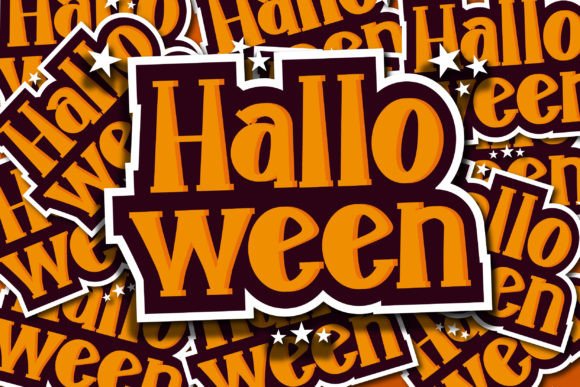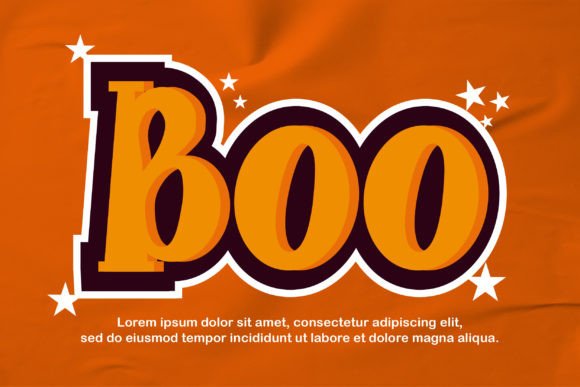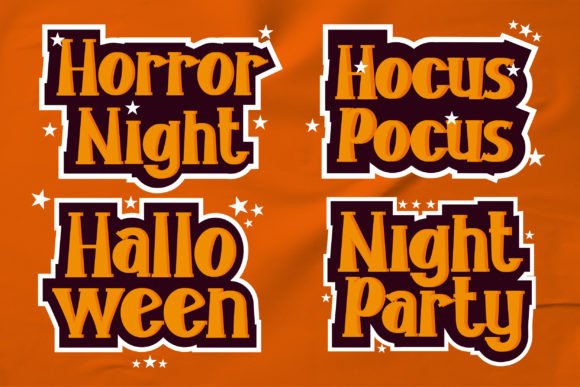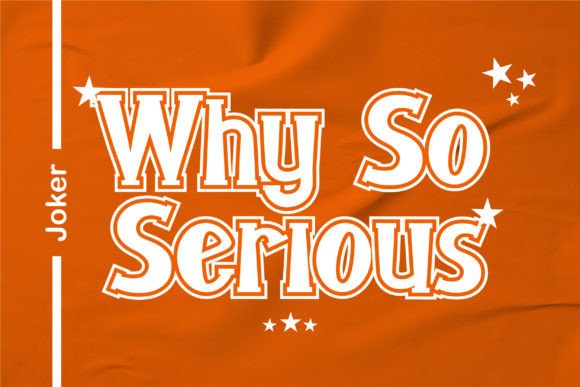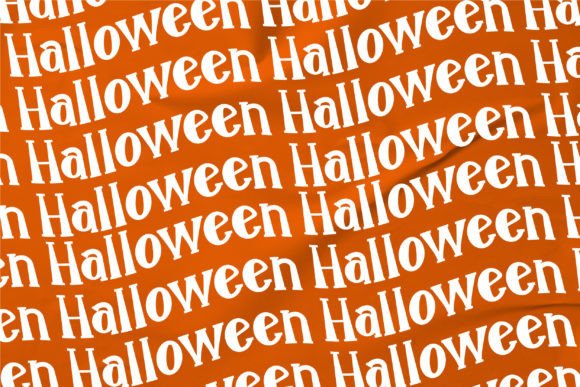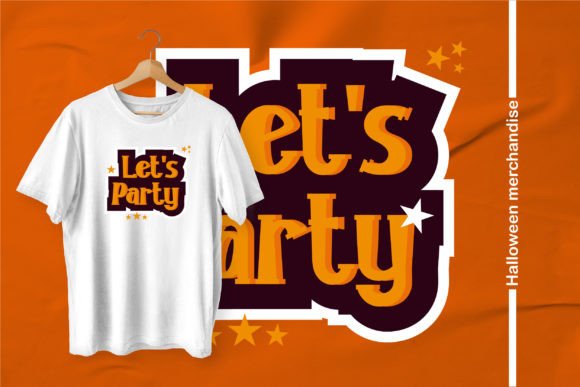
Introduction to Halloween Sunday Font
Do you remember the thrill of rummaging through your grandmother’s attic on a crisp autumn morning, uncovering a treasure trove of old Halloween decorations and mysterious trinkets? That same excitement and sense of wonder can be captured with the perfect design element – and that’s exactly where the Halloween Sunday Font comes in.
This stunning Serif display font is a game-changer for designers looking to add a touch of magic to their creative projects. With its high-quality design and transparent background, it’s the perfect addition to any Halloween-themed flyer, greeting, or decoration. And the best part? You can download it for free, making it an invaluable resource for designers on a budget.
Halloween Sunday Font Key Features
- Unique Gothic-inspired design, ideal for creative projects and spooky themes.
- High-quality font with transparent background, perfect for designing on dark backgrounds.
- Includes a range of characters, including uppercase and lowercase letters, numbers, and special symbols.
- Designed with a bold and eerie feel, making it perfect for Halloween-themed designs, horror movies, and other spooky creative projects.
Honest Review: Halloween Sunday Font
- ✨ High-quality glyphs that evoke a spooky atmosphere, perfect for Halloween-themed designs.
- ✨ The font is highly legible, even in smaller sizes, making it suitable for various design applications.
- ⚠️ The font doesn’t include any additional characters or symbols, which might be a drawback for some users.
- ⚠️ The font is limited to a specific aesthetic, which might not appeal to designers looking for a more versatile font.
Overall, the Halloween Sunday Font is a great addition to any designer’s collection, especially for those working on Halloween-themed projects. While it has some limitations, the high-quality glyphs and transparent background option make it a valuable design resource.
Halloween Sunday Font
Tips for Getting the Most Out of Halloween Sunday Font
To get the most out of the Halloween Sunday Font, use it in combination with other design elements, such as images or graphics, to create a cohesive and engaging design. Experiment with different font sizes and colors to achieve the desired effect.
The Halloween Sunday Font is perfect for a variety of creative projects, including:
- Halloween party invitations and decorations
- Spooky-themed social media graphics
- Creepy web design elements
- Scary movie or book covers
2. Bloodbath Font
Bloodbath Font is a bold, high-contrast font perfect for design projects that require a dark and edgy vibe. It’s ideal for horror-themed designs, gothic art, and other creative projects that involve a sense of foreboding. Use it for posters, flyers, and other marketing materials.
Q: What is the quality of the Halloween Sunday Font?
The Halloween Sunday Font is a high-quality design resource that is optimized for clear readability and aesthetic appeal. With its crisp lines, smooth curves, and well-balanced typography, this font is perfect for a wide range of creative projects, from print to digital media.